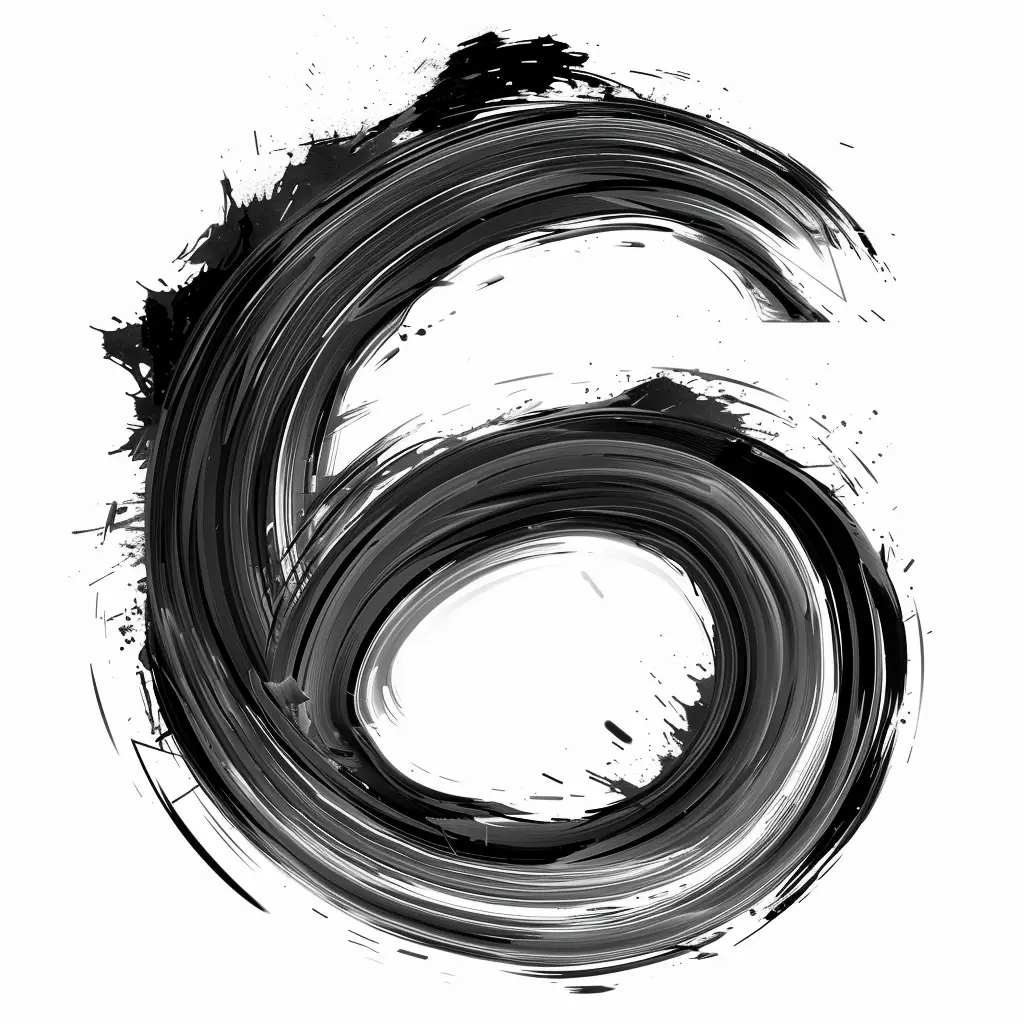
This image features a stylized, abstract representation of the number 6, created with bold, swirling black brushstrokes against a light gray background. The design has a dynamic, painterly quality with visible texture, splatters, and varying shades of gray that add depth and movement. The circular, spiral form of the 6 is emphasized by the layered, expressive strokes, giving it an artistic, hand-drawn appearance.